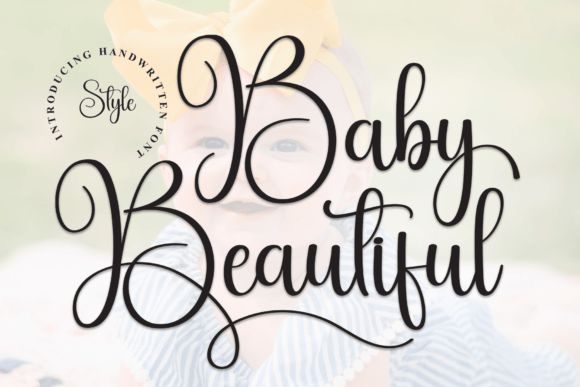
Creating Magic with Every Letter
Have you ever sat down with a blank card, a pen, and a dash of creativity, trying to put into words the perfect message for a loved one? For many of us, this is a moment of pure joy, where the lines between art and love blur. It’s in these moments that we remember the importance of typography and the impact a beautiful font can have on our emotions.
Enter Baby Beautiful Font, a sweet and delicate handwritten font that embodies the essence of romance and whimsy. Designed to add a touch of elegance to your designs, Baby Beautiful Font is perfect for writing wedding invitations, cards, and other projects that require a personalized and heartfelt feel. As a designer, you’ll appreciate the versatility and charm of this font, making it an invaluable addition to your toolkit.
Baby Beautiful Font Key Features
- Unique Characteristics: Hand-drawn design, elegant and cursive script, perfect for baby-related projects and designs
Designer Review: Baby Beautiful Font
First impressions count, and the Baby Beautiful Font delivers in spades. The initial feeling I got when I first opened the font was one of warmth and playfulness. The font’s creator has done a great job of capturing the essence of baby-like features, from the rounded edges to the adorable details. ✨
The font is perfect for creating a nursery or kids’ party invitation that exudes joy and innocence. The Baby Beautiful Font is also great for crafting baby-related products, such as onesies, stickers, and other print materials. It’s a great choice for designers who want to add a touch of whimsy to their projects. ✨
- ⚠️ Limited character set: The font has a relatively small character set, which might be a limitation for designers who need a wide range of characters.
- ⚠️ Limited language support: The font is primarily designed for Latin-based languages, which might not be suitable for designers who need to support other languages.
Overall, the Baby Beautiful Font is a delightful and charming font that’s perfect for designers who want to create fun and playful projects. While it has some limitations, it’s still a great choice for those who need a font that’s both cute and functional.
Practical Application Guide for Baby Beautiful Font
Baby Beautiful Font is commonly used for:
- Children’s book covers and illustrations.
- Party invitations and decorations.
- Children’s product packaging and branding.
Q: What is the recommended font size for using the Baby Beautiful Font?
The Baby Beautiful Font is designed to be versatile and can be used at a wide range of font sizes. However, for optimal readability, we recommend using font sizes between 12pt and 24pt for body text and 36pt to 48pt for headings.